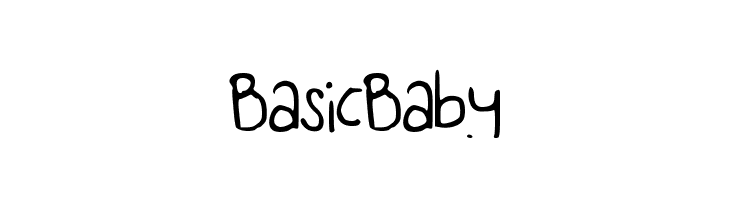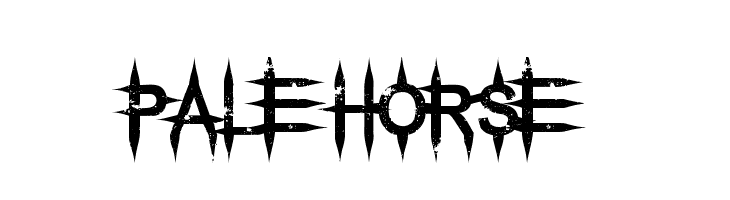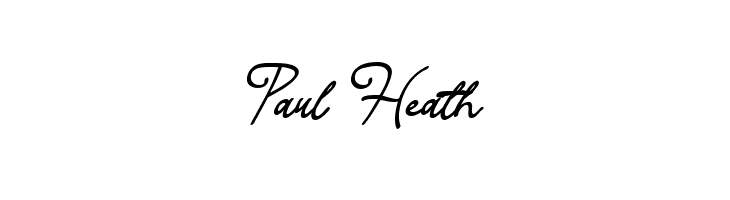
A bold, spiked, and distressed decorative font ideal for edgy designs.
( Fonts by Timur Type )
A flowing, elegant script font with a handwritten appearance.
( Darrell Flood )
A playful, hand-drawn font with rounded characters and a whimsical style.
( Fonts by scratchones )
A lively, expressive handwritten font with flowing, interconnected letterforms.
A flowing, cursive font with a handwritten and elegant style.
A bold, three-dimensional font with a geometric and shadowed design.
A bold, decorative font with playful, eclectic patterns and whimsical style.
A bold, geometric font with a halftone effect, offering a futuristic and industrial look.
A playful, handwritten font with smooth, rounded edges and a casual style.